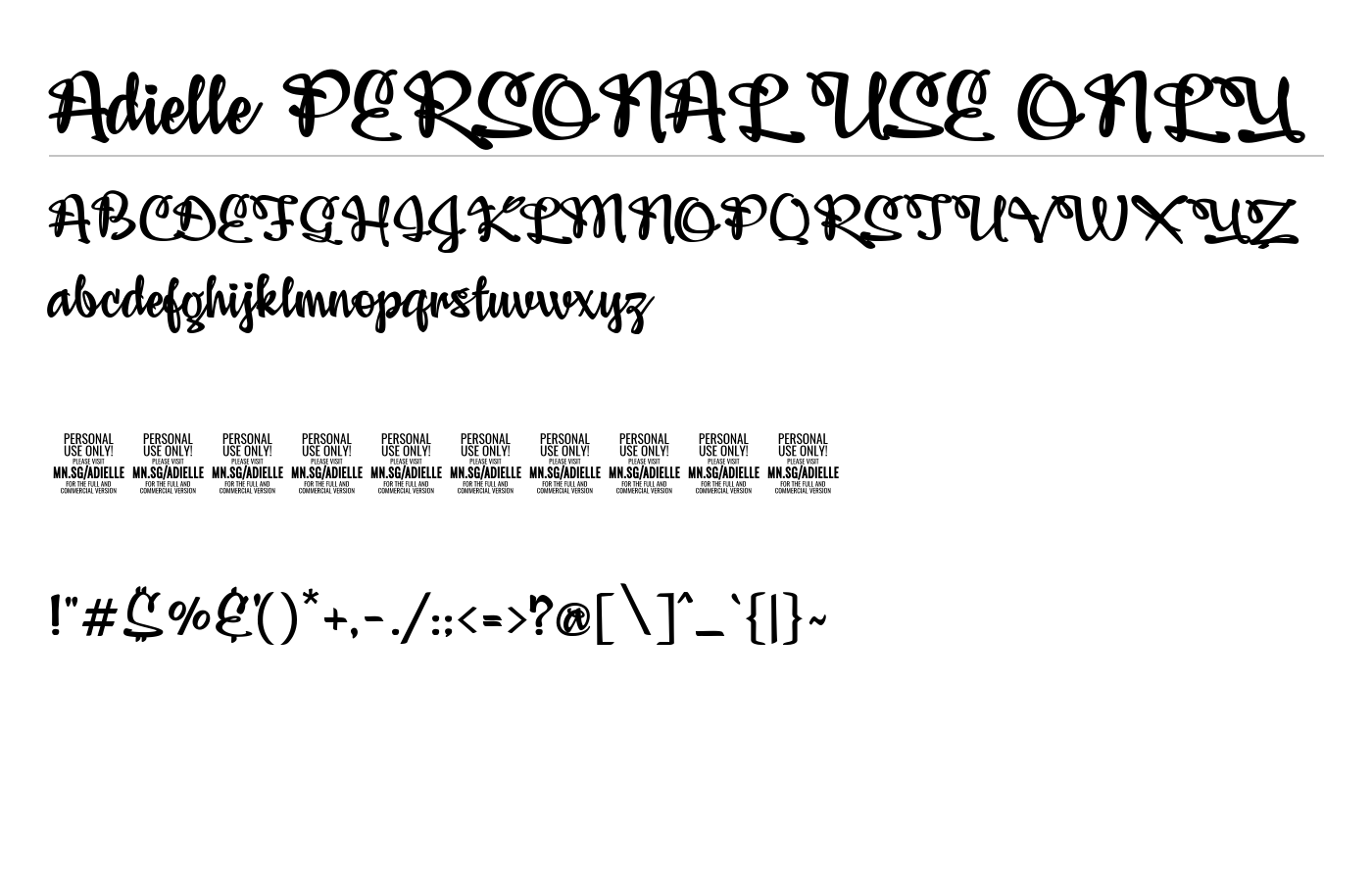
Adielle PERSONAL USE ONLY is a playful and decorative script font characterized by its bold, brush-like strokes and whimsical loops, giving it an artistic and handwritten feel. Its lively uppercase letters contrast with the more casual and fluid lowercase forms, making it ideal for creative and informal designs such as invitations, personal branding, and artistic projects where a fun and friendly personality is desired. This font works best in headlines and display uses where its unique style can shine without compromising readability.
Adielle PERSONAL USE ONLY Font
About Adielle PERSONAL USE ONLY Font
| Font family | Adielle PERSONAL USE ONLY Font |
| Designer | Rodi de Asis, Mans Greback |